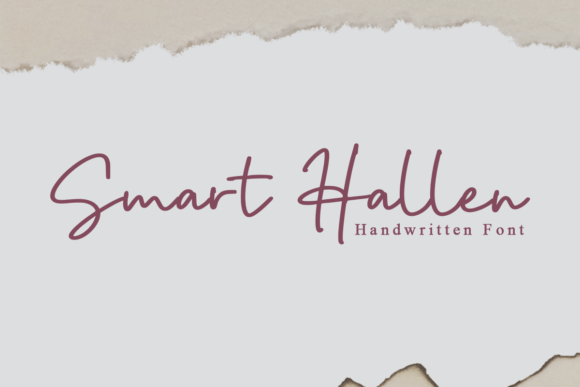
Smart Hallen Font
Introducing Smart Hallen – the tantalizingly beautiful script font that will ignite your creativity and make your words dance off the screen!
Immerse yourself in a world of effortless elegance with Smart Hallen, the perfect companion for expressing your individuality. Its ethereal strokes and delicate charm will captivate your audience, transforming your designs from ordinary to unforgettable.
With its PUA encoding, unleashing Smart Hallen's full potential is a breeze. Access a treasure trove of glyphs and swashes with unparalleled ease, empowering you to add a touch of magic to every project.
Imagine your greeting cards adorned with Smart Hallen's graceful curves, creating an unforgettable first impression. Envision business cards that exude sophistication, leaving a lasting impact on potential clients. Wedding invitations will become cherished keepsakes, capturing the joy and romance of your special day.
Quotes will gain new life, their profound messages amplified by Smart Hallen's expressive character. Logos will acquire a timeless appeal, their brands etched into memory with each encounter. T-shirts, apparel, and packaging designs will radiate with undeniable style, turning everyday items into objects of desire.
Smart Hallen is not merely a font; it's a transformative tool that will unlock your creative potential. Embrace its enchanting allure and embark on a journey of captivating designs that will leave an indelible mark on the world.
Indulge in the exquisite artistry of Smart Hallen today, and watch your creations blossom into masterpieces that captivate and inspire!